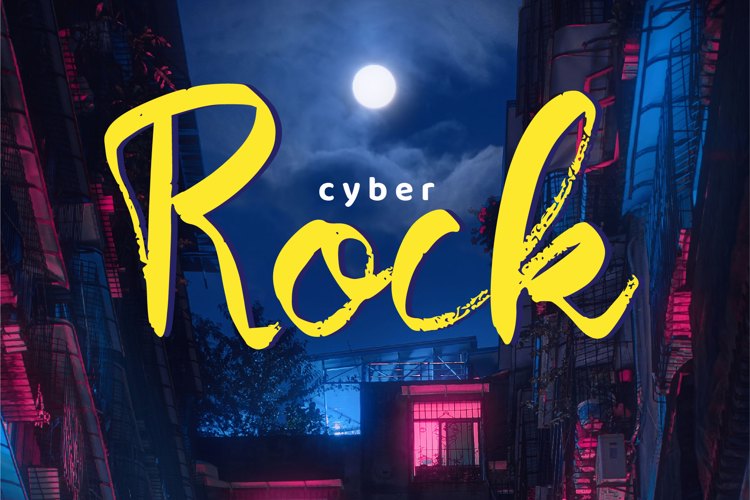
Cyber Rock Font
About Cyber Rock Font
Cyber Rock Brush Font
It's a brushed and beautiful script font. It has a modern yet whimsical style and it will undoubtedly immerse your designs into a magical world.